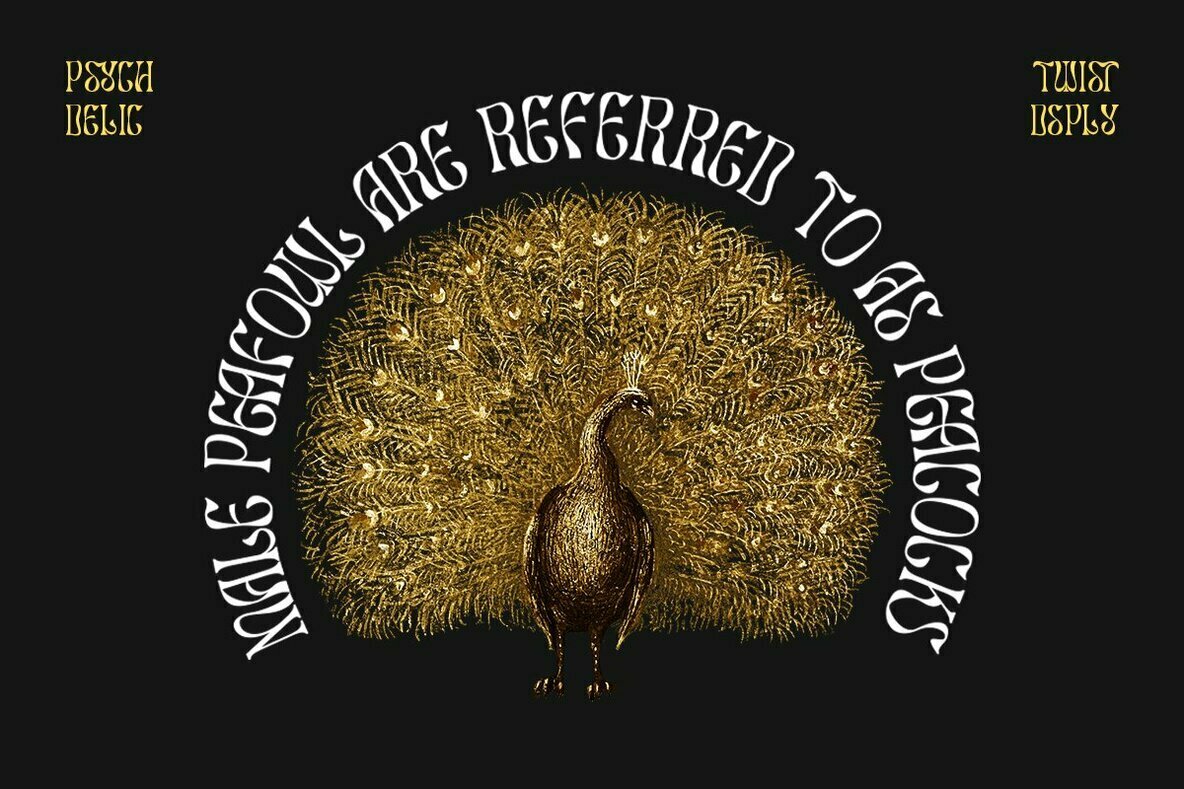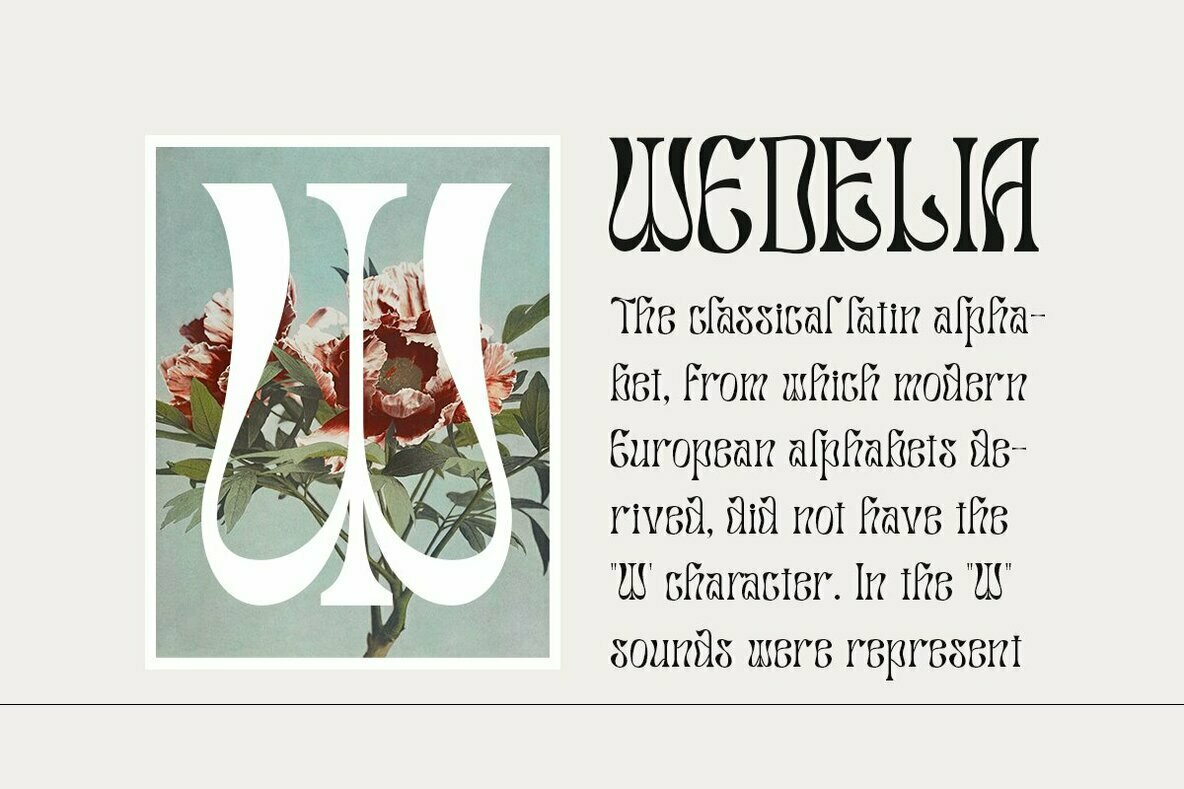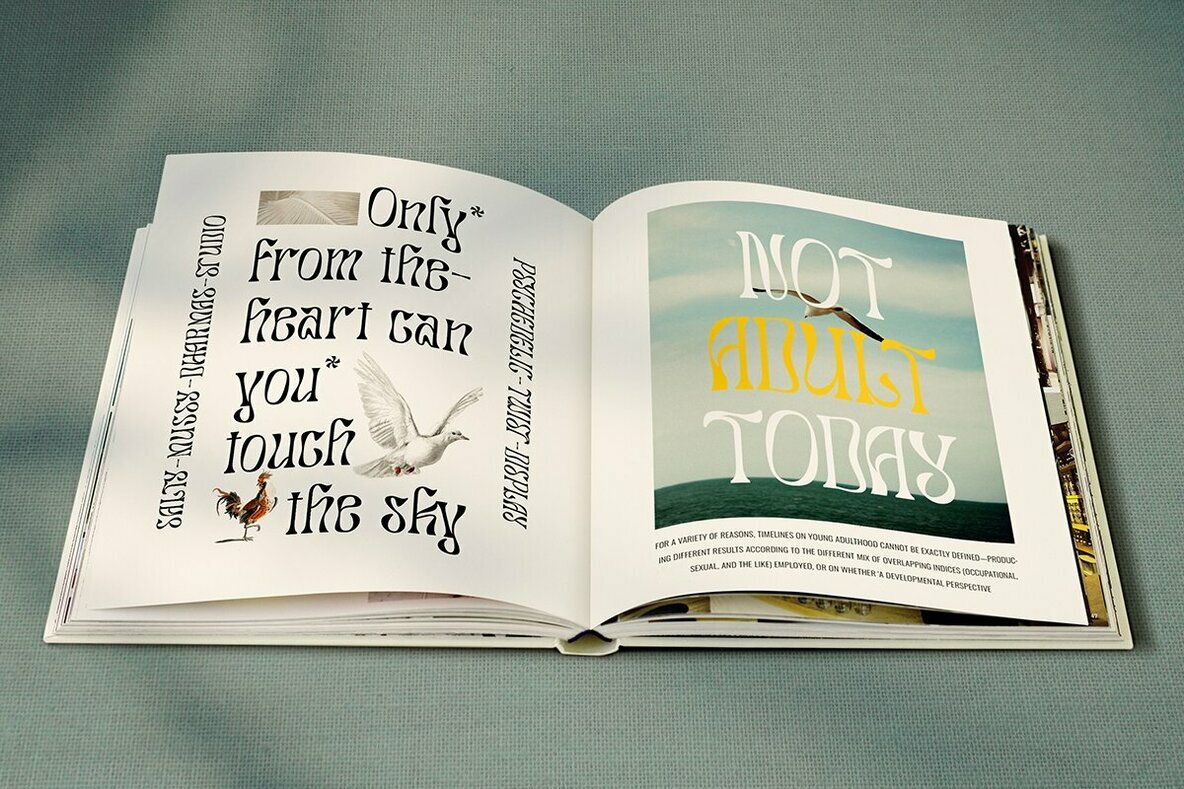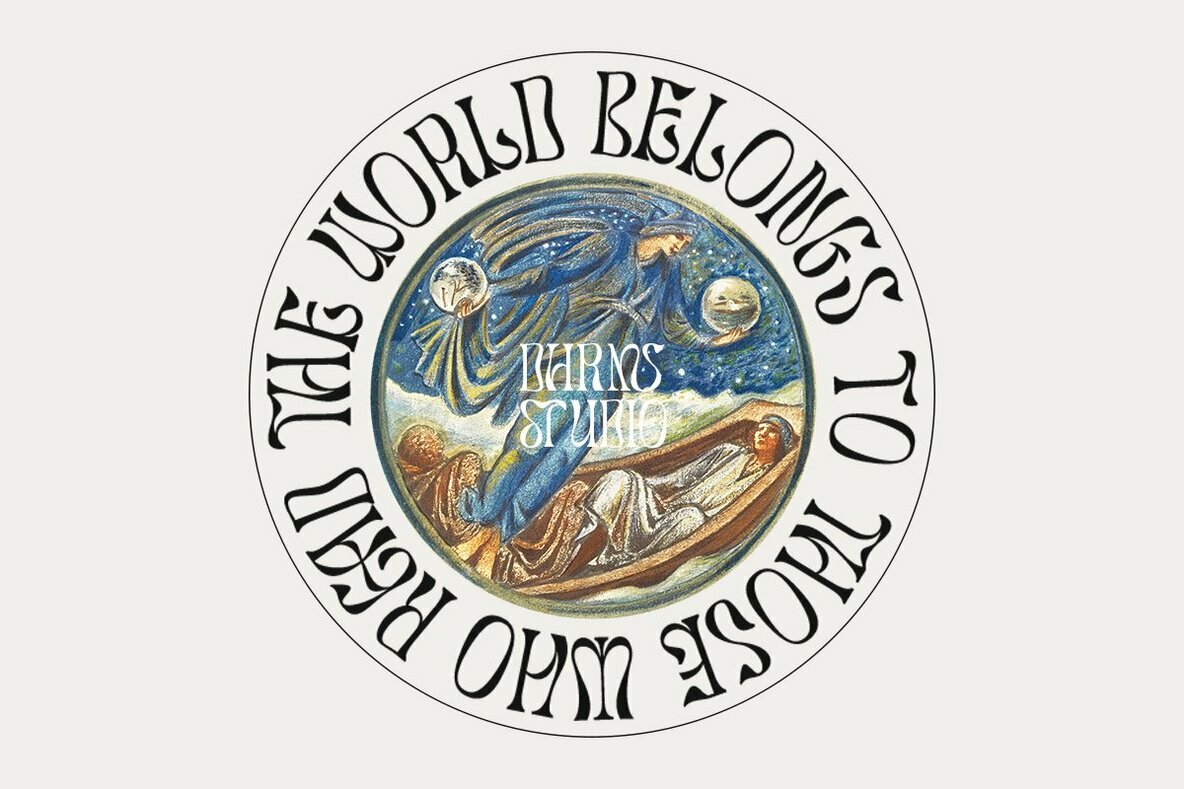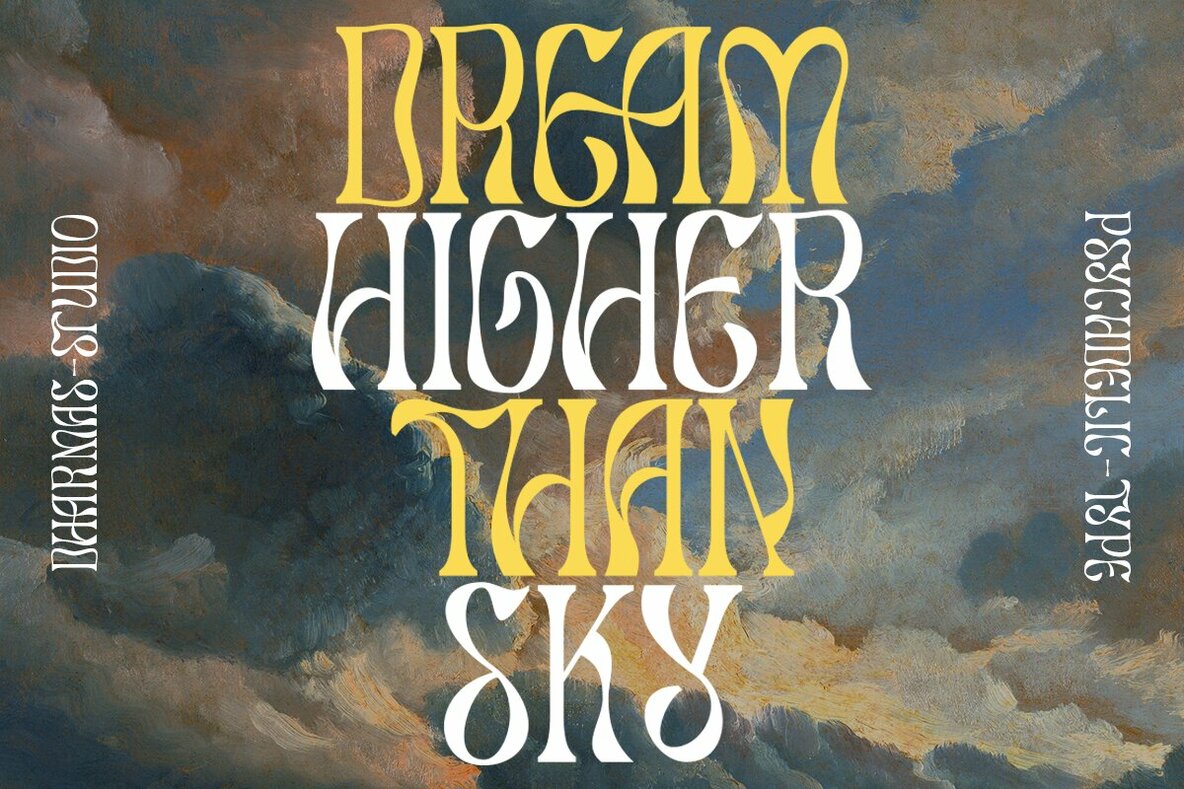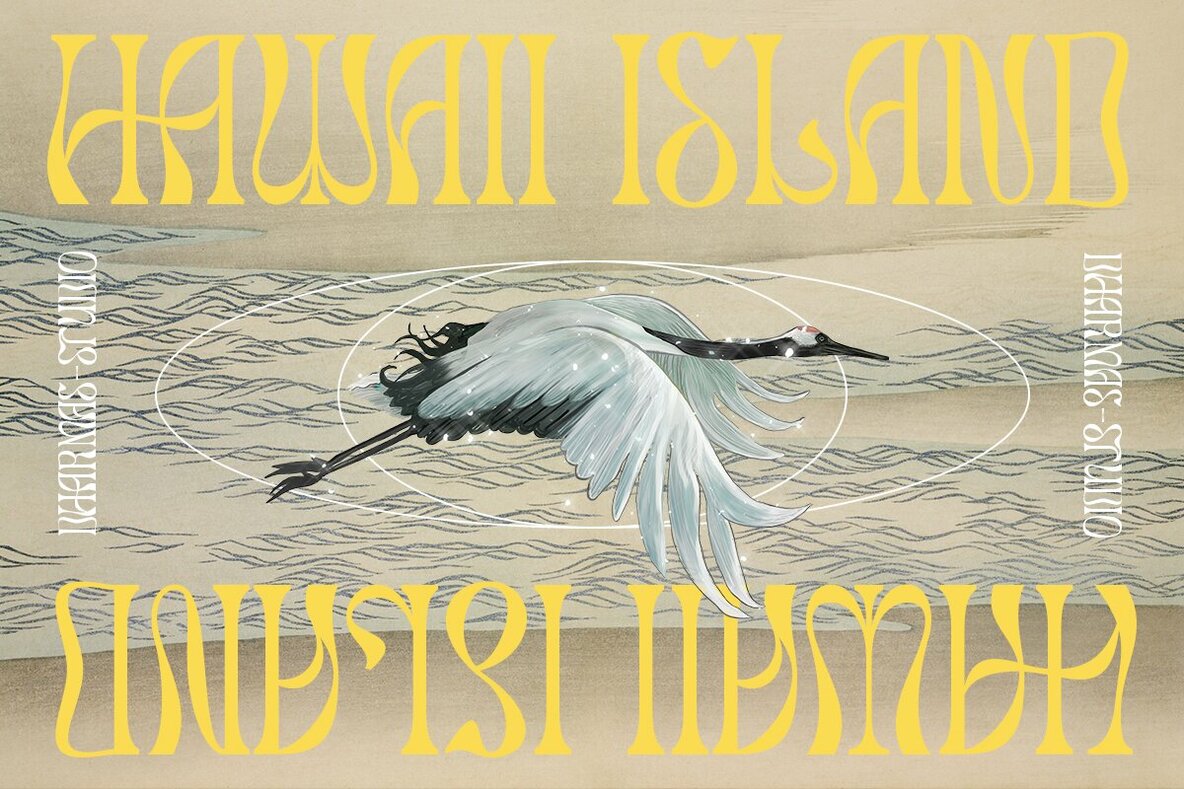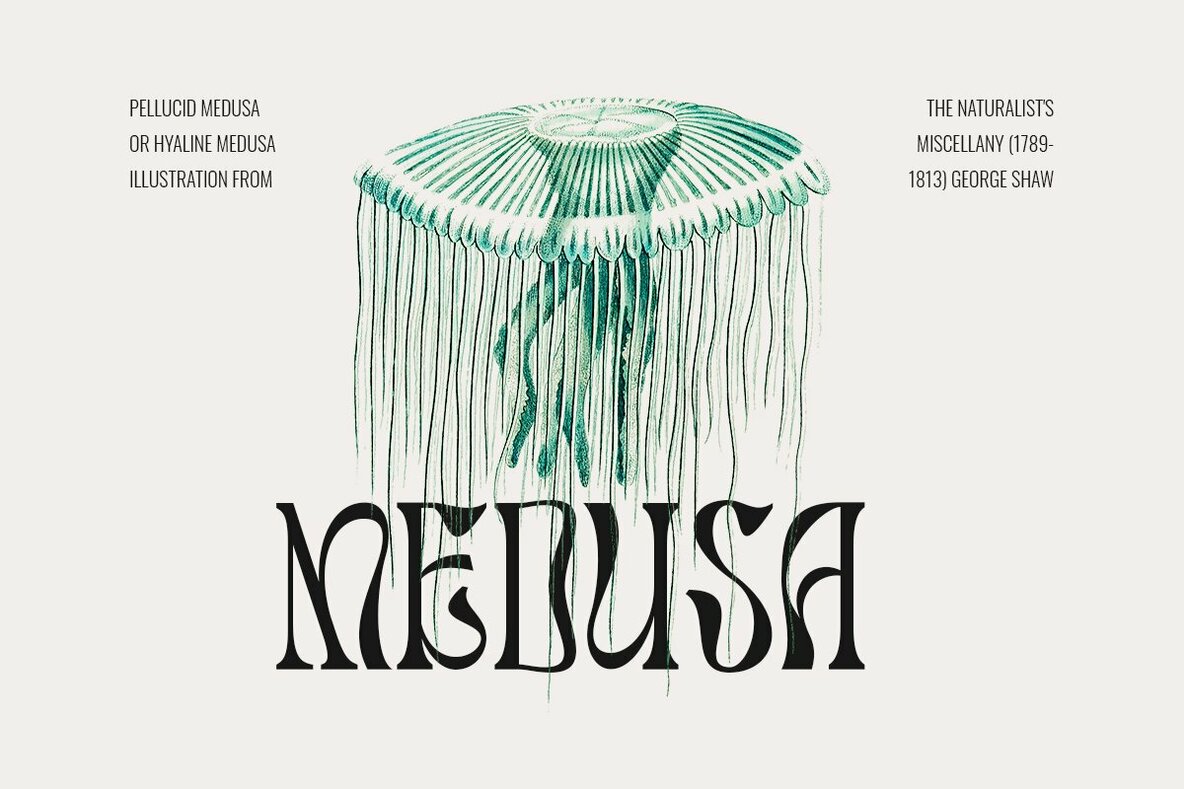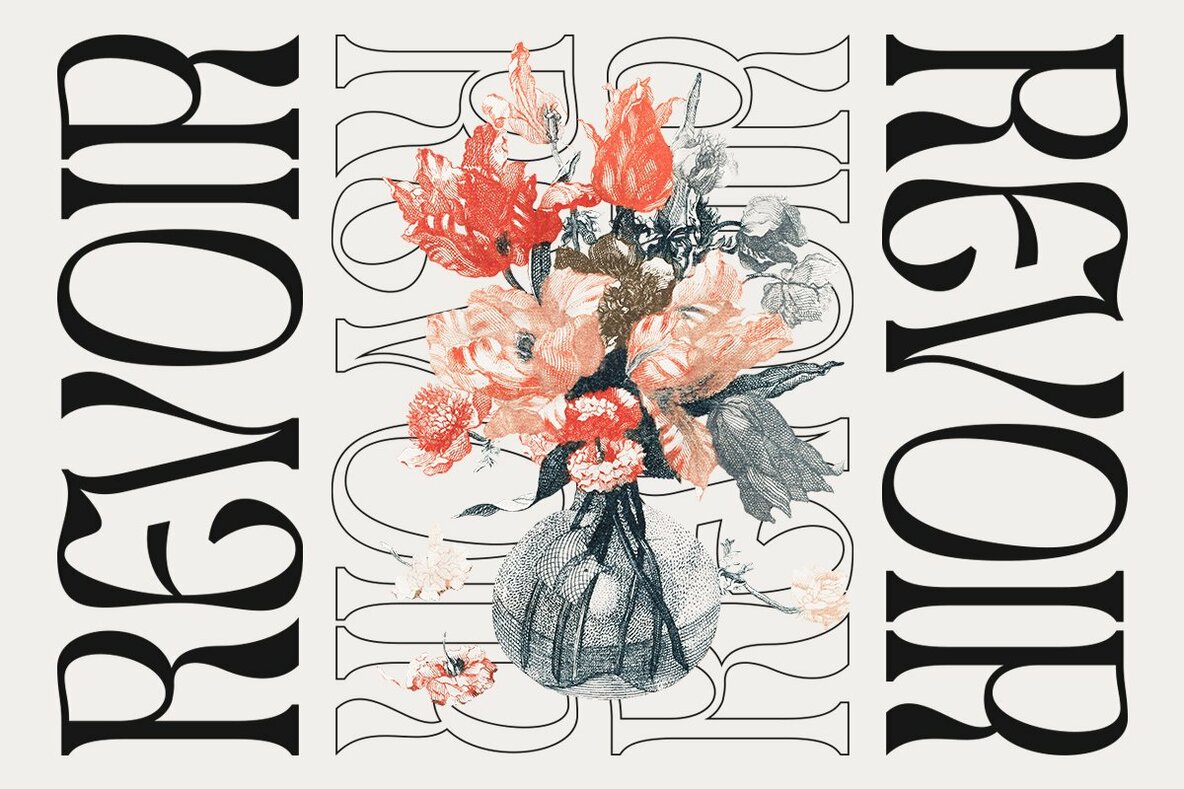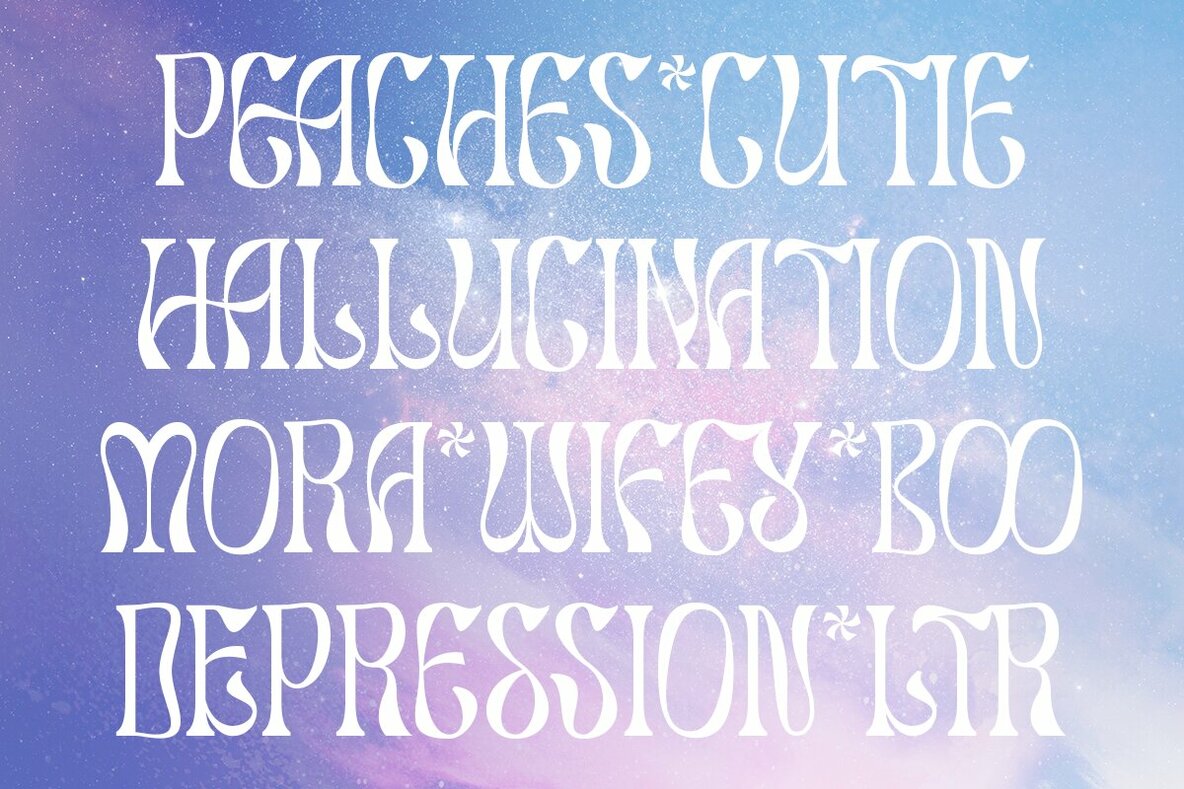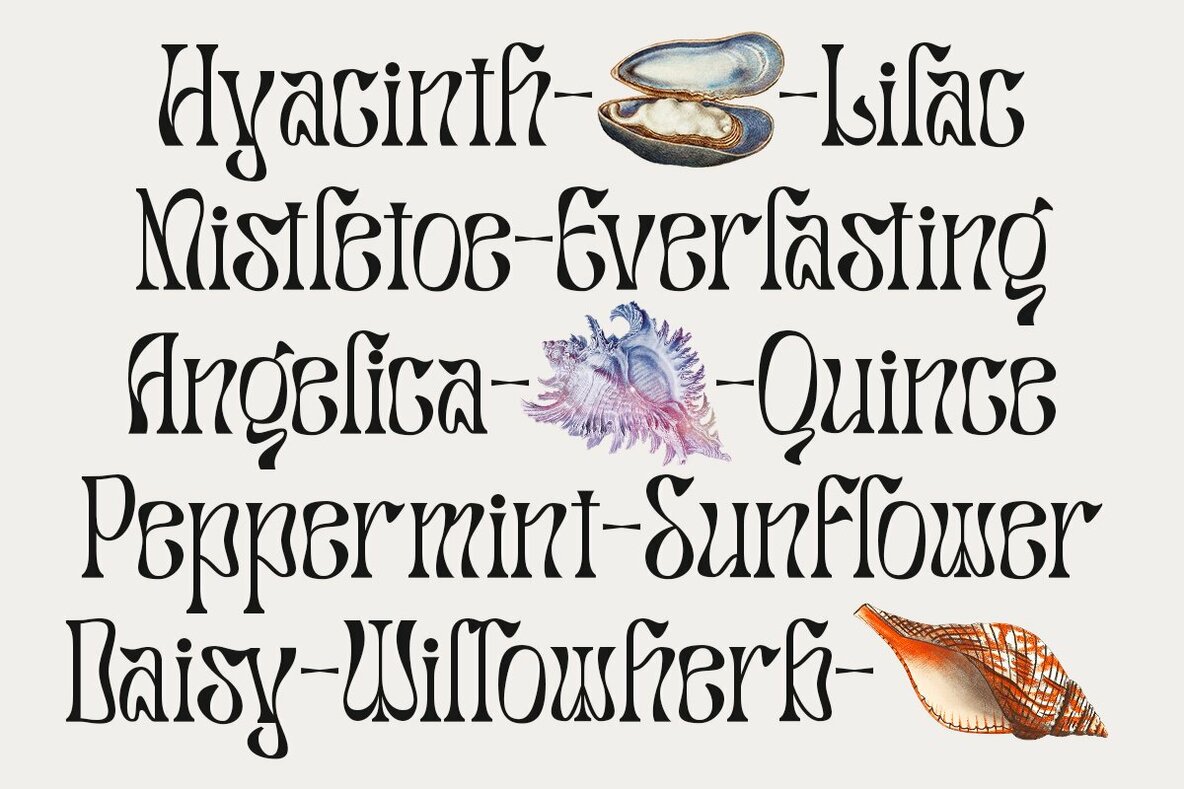
Salty Mussy Font
Salty Mussy
Salty Mussy is a display typeface that has quirky and twisted style, bringing back the 70s vibes with its modern but still funky rhythm. This font includes uppercase letters as well lowercase ones so it can show more options for your project!